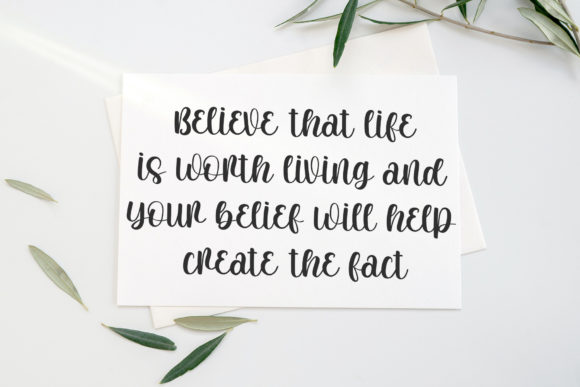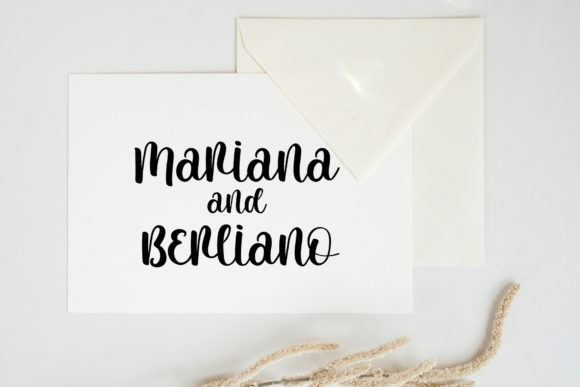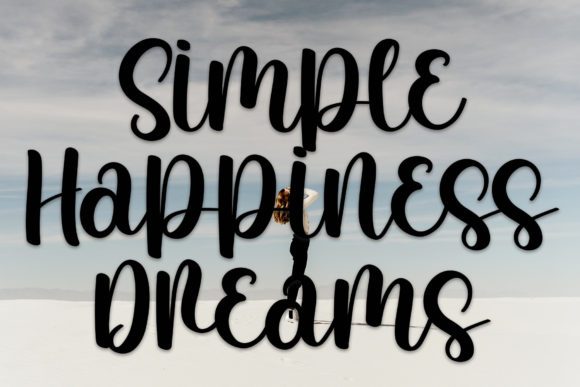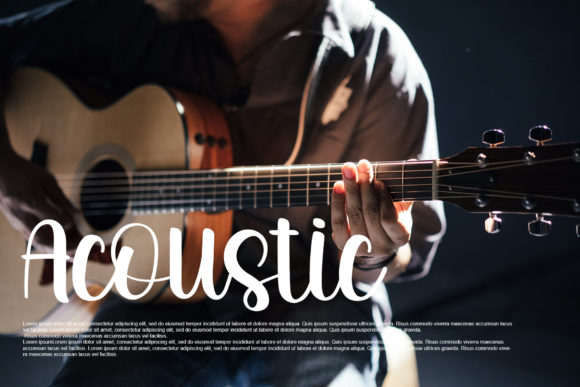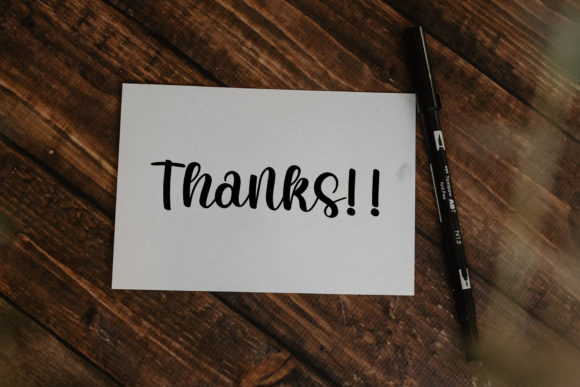
Introducing Farmhouse Planner Font: Elevate Your Designs with a Stylish and Trendy Script Font
Are you a designer or crafter looking for a font that can add a touch of elegance and sophistication to your designs? Look no further than the Farmhouse Planner Font. This beautiful script font is perfect for creating stunning wedding invitations, thank you cards, quotes, greeting cards, logos, business cards, and more.
What Makes Farmhouse Planner Font So Special?
Farmhouse Planner Font is a stylish and trendy script font that is designed to make your designs stand out. Its unique and elegant lettering style is perfect for adding a customized touch to any project. Whether you’re creating a wedding invitation or a business card, this font is sure to impress.
One of the best things about Farmhouse Planner Font is its versatility. It can be used for a wide range of design projects, from formal events like weddings and galas to more casual projects like party invitations and DIY crafts. The font is also highly legible, making it perfect for use in both print and digital designs.
Key Features of Farmhouse Planner Font
- Stylish and trendy script font: Farmhouse Planner Font is a beautiful script font that is perfect for adding a touch of elegance to your designs.
- Highly legible: The font is designed to be easy to read, making it perfect for use in both print and digital designs.
- Versatile: Farmhouse Planner Font can be used for a wide range of design projects, from formal events to casual DIY crafts.
- Customizable: The font can be customized to fit your specific design needs, making it perfect for creating unique and personalized designs.
How to Use Farmhouse Planner Font in Your Designs
Using Farmhouse Planner Font in your designs is easy. Here are a few tips to get you started:
- Pair it with other fonts: Farmhouse Planner Font pairs well with other fonts, such as sans serif fonts and serif fonts. Experiment with different font combinations to find the perfect look for your design.
- Use it for headings and titles: Farmhouse Planner Font is perfect for use in headings and titles, where its elegant and stylish lettering style can really shine.
- Add embellishments: Consider adding embellishments, such as flowers or greenery, to your design to give it a more personalized and customized touch.
Why Designers and Crafters Love Farmhouse Planner Font
Designers and crafters love Farmhouse Planner Font for a variety of reasons. Here are a few:
- It’s versatile: The font can be used for a wide range of design projects, making it a great addition to any designer’s or crafter’s toolkit.
- It’s stylish and trendy: Farmhouse Planner Font is a stylish and trendy script font that is sure to add a touch of elegance to any design.
Farmhouse Planner Font is a beautiful and versatile script font that is perfect for designers and crafters looking to add a touch of elegance and sophistication to their designs. With its stylish and trendy lettering style, high legibility, and customizability, it’s no wonder that this font is a popular choice among designers and crafters. Whether you’re creating a wedding invitation, a business card, or a DIY craft, Farmhouse Planner Font is sure to impress.